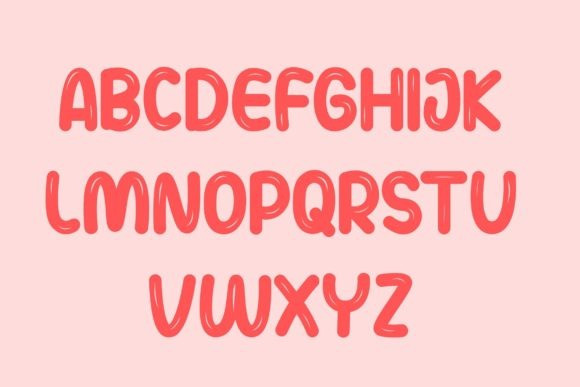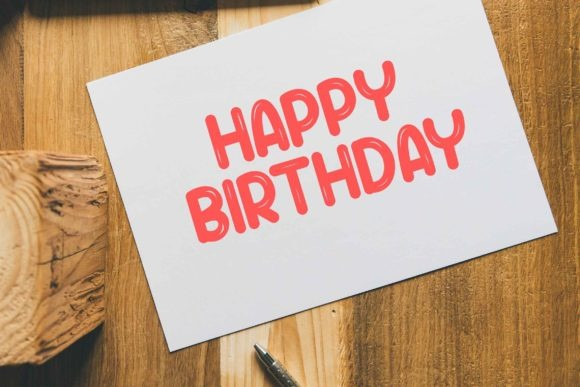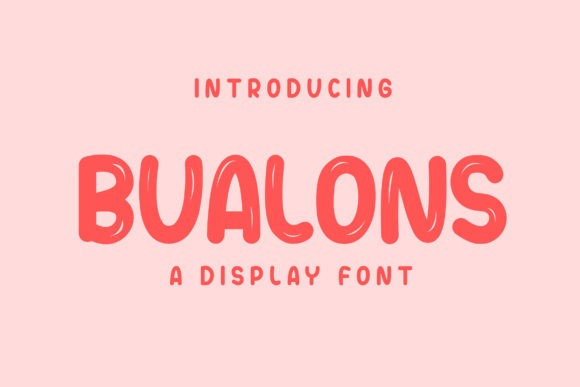
Bualons Font
Bualons Font is a bubble display font with a fun and cute look. Fall in love with its beautiful balloon characters. This font is versatile and can be adapted to suit everything, from kids’ activities and school projects to birthday cards, print designs, cute greeting cards, and much more. Create this font to your heart’s content and make your creation stand out!